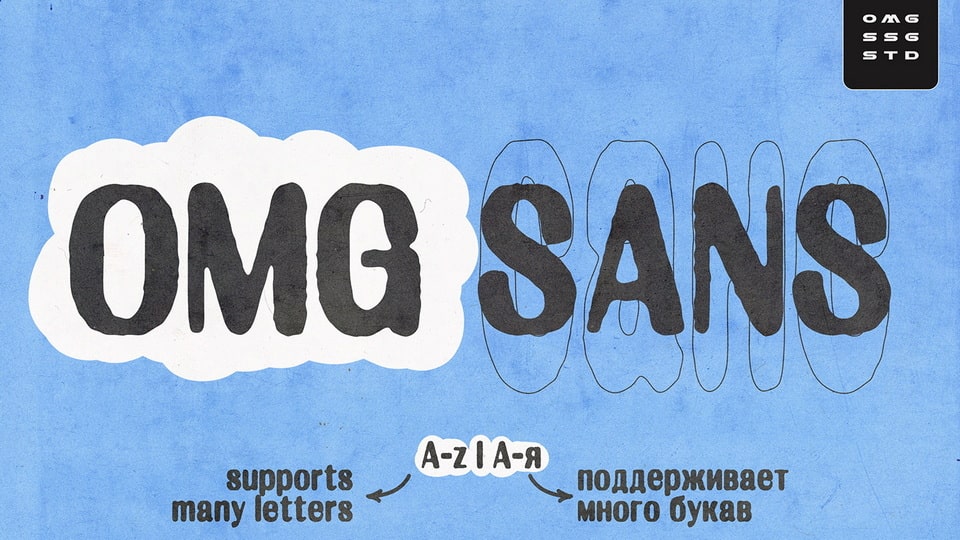
Download OMG Sans font, a unique sans typeface combines strict structure with elements of grunge and ink bleed for a striking visual impact.
Designer: OMG SSG STUDIO